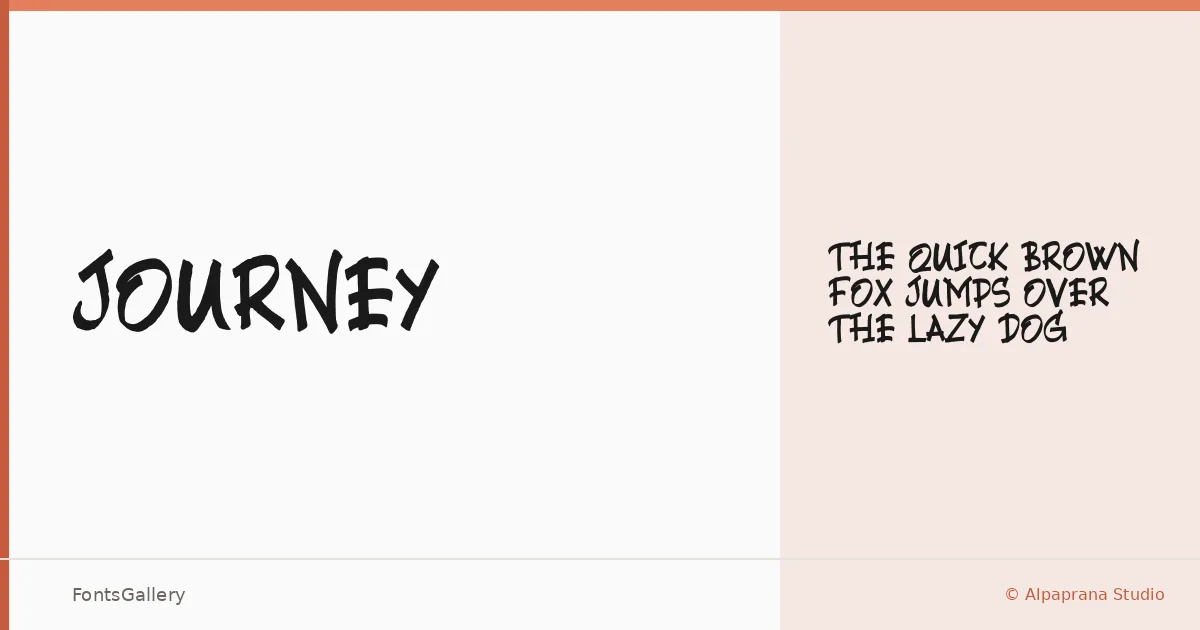
About Journey Font
There's a roughness to the strokes here — an intentional drag and texture that makes the letterforms feel like they were drawn with a well-worn brush rather than rendered on a screen. This is a single-cut handwritten face from Alpaprana Studio, released in 2022, available in Regular in both TTF and OTF formats.
The character sits firmly in grunge and vintage territory, with rustic edges and a bold presence that reads as handmade without sacrificing legibility at display sizes. That weathered quality gives the Latin character set real texture — the kind of imperfection that feels earned rather than applied. It carries weight even at a single style, and that confident boldness is exactly where it earns its keep.
The face is built for high-impact, short-text applications: branding wordmarks, poster headlines, logo treatments, social media graphics, and apparel like t-shirt design. When you need to ground that energy in something clean, it pairs well against the editorial cool of Canela or ABC Arizona, the neutrality of Helvetica or Asap, or the classical structure of Adobe Caslon Pro — each pairing creating a useful contrast between the rough and the refined.